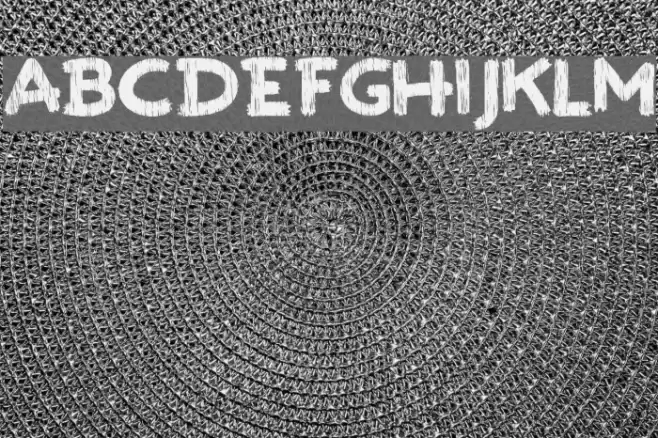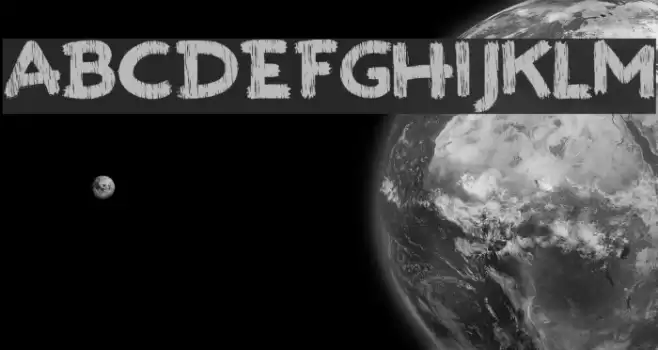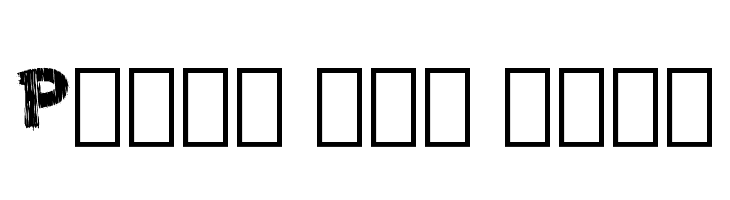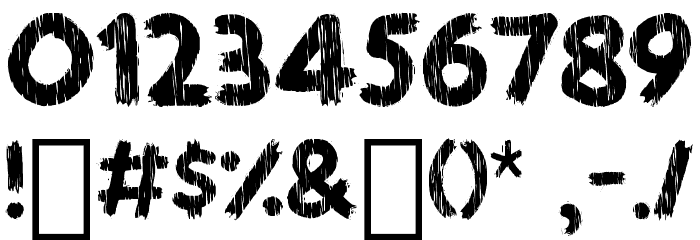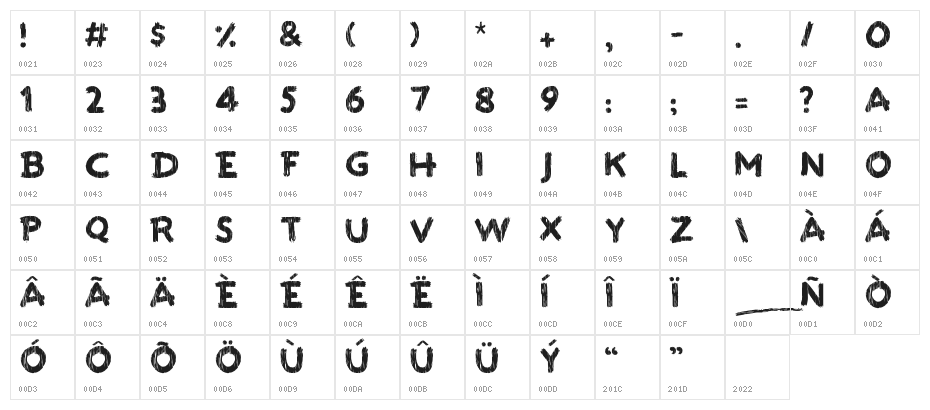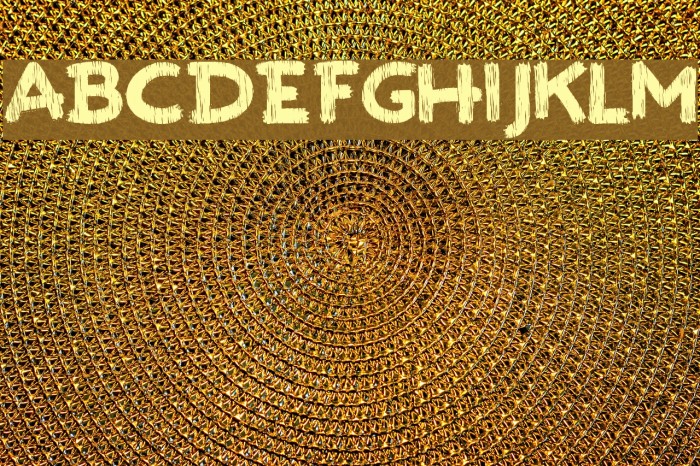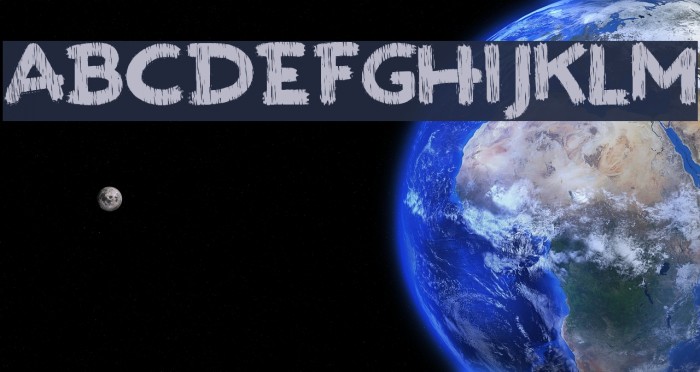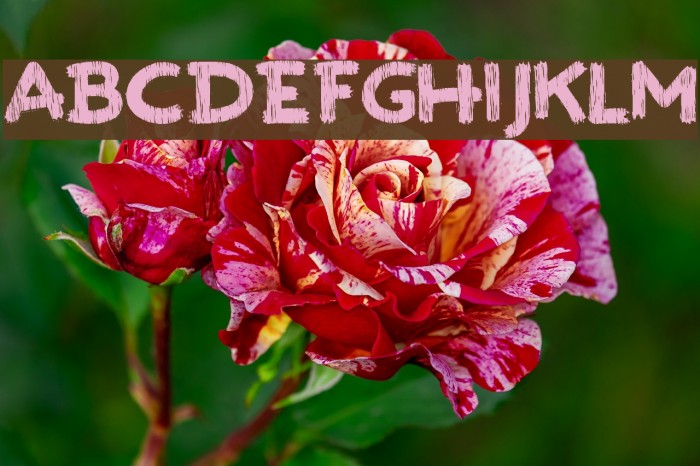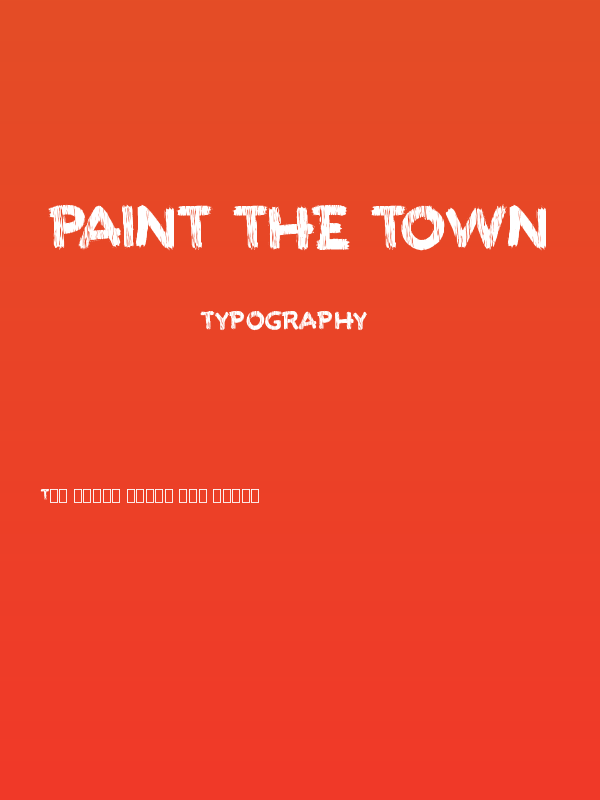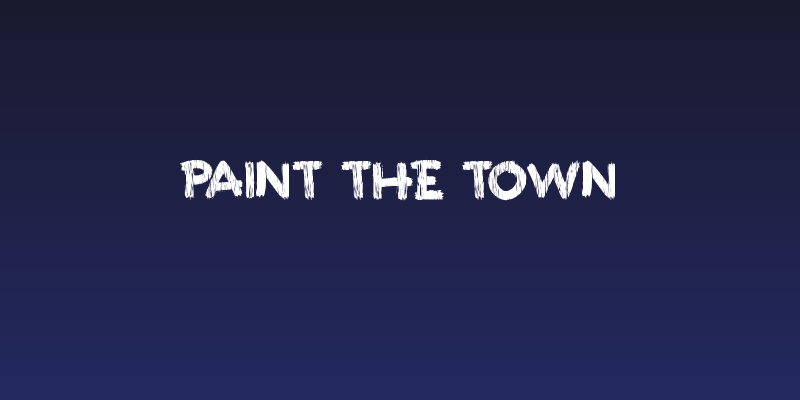
Paint the town Font
Paint the town Description
This font features a bold, textured style that mimics the appearance of paintbrush strokes. The letters are uppercase and have a rugged, artistic flair, making them stand out with a dynamic and energetic feel. The numbers and special characters follow the same design, ensuring consistency across all elements. The font's unique texture gives it a handcrafted look, perfect for projects that require a creative and expressive touch. Its boldness ensures readability while maintaining an artistic edge.
A bold, textured font with a paintbrush stroke effect from Uncategorized fonts.
- Proposed Projects: Ideal for artistic posters, creative branding, event flyers, and any project needing a bold, expressive typeface.